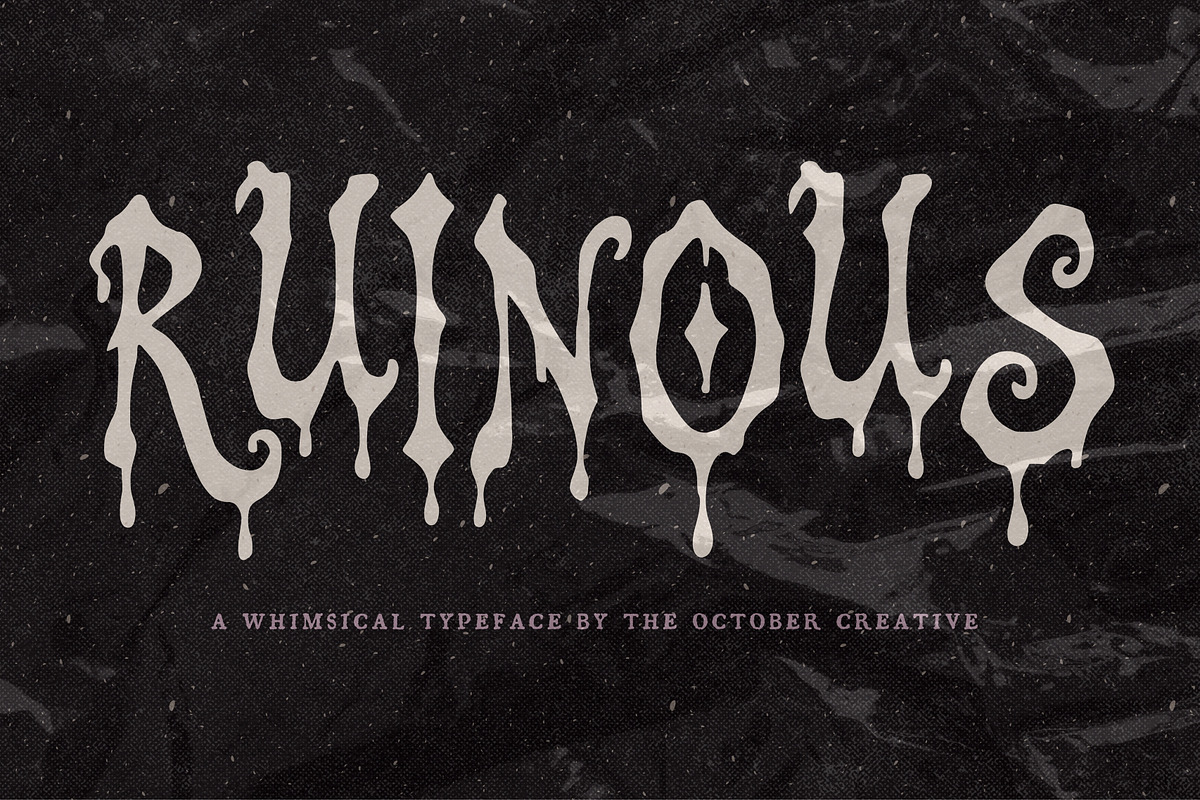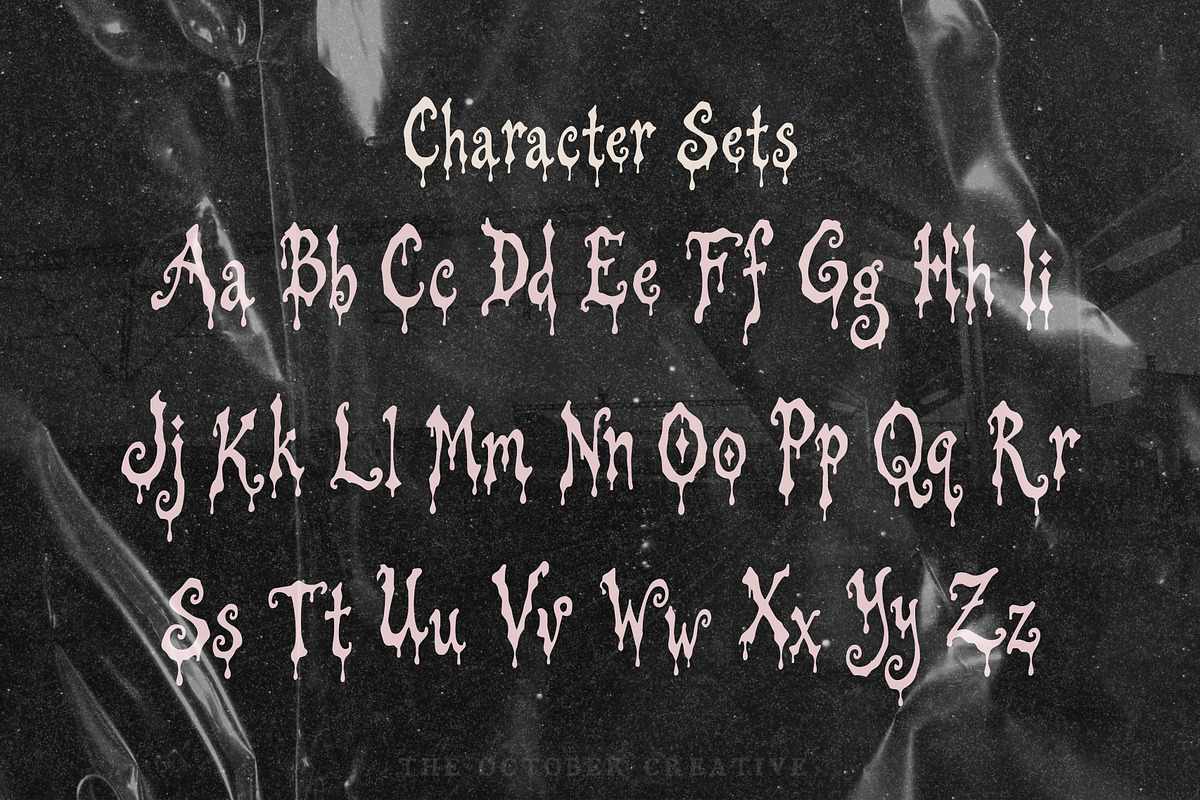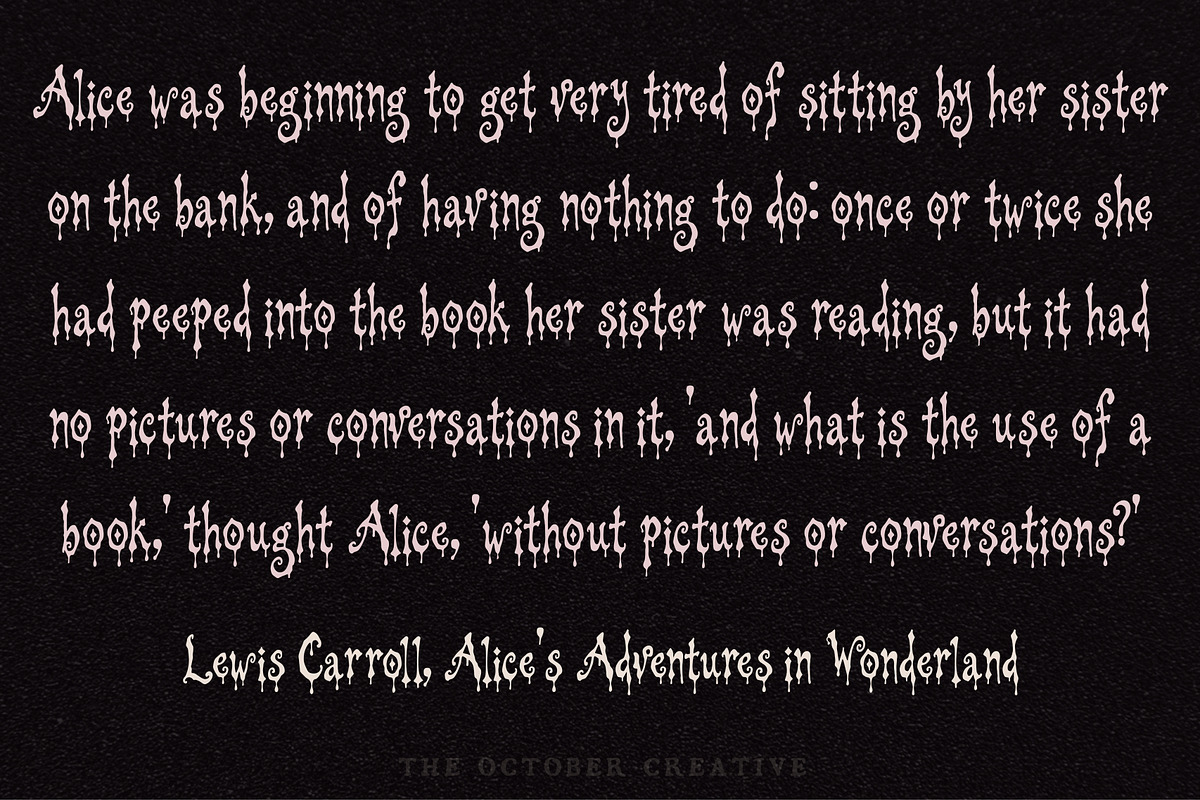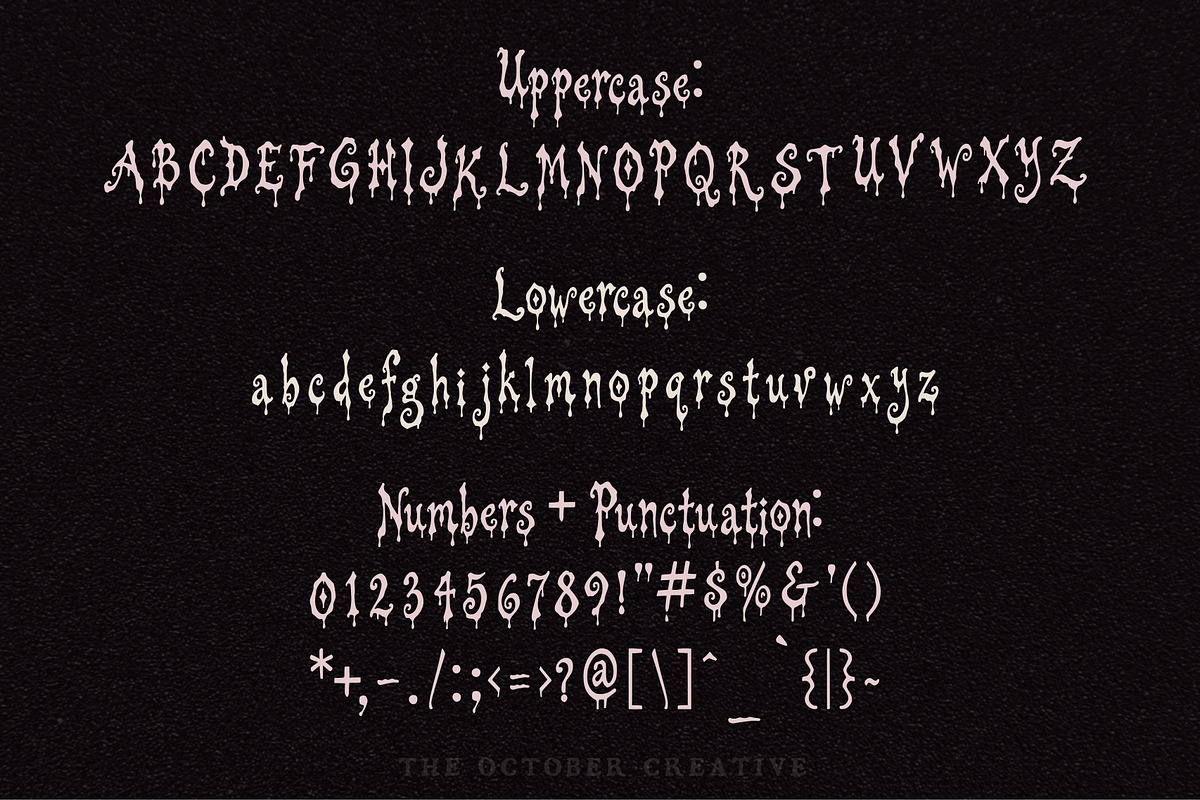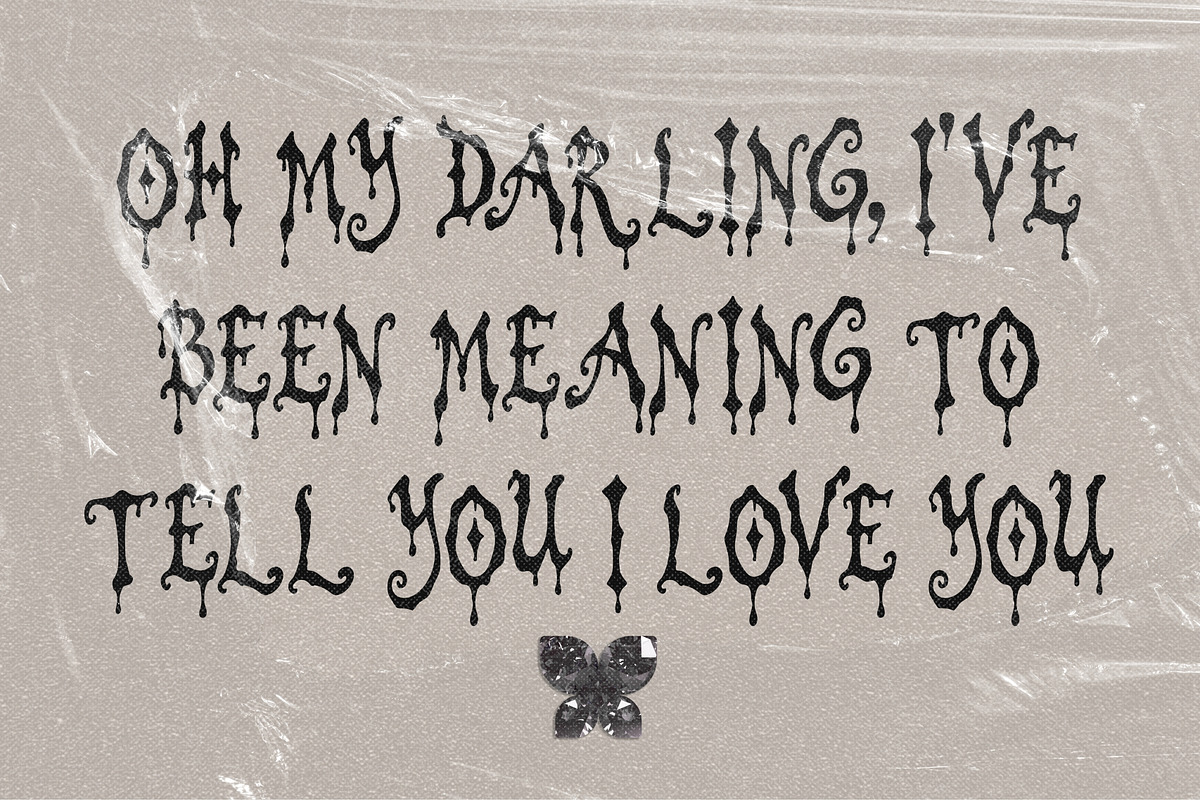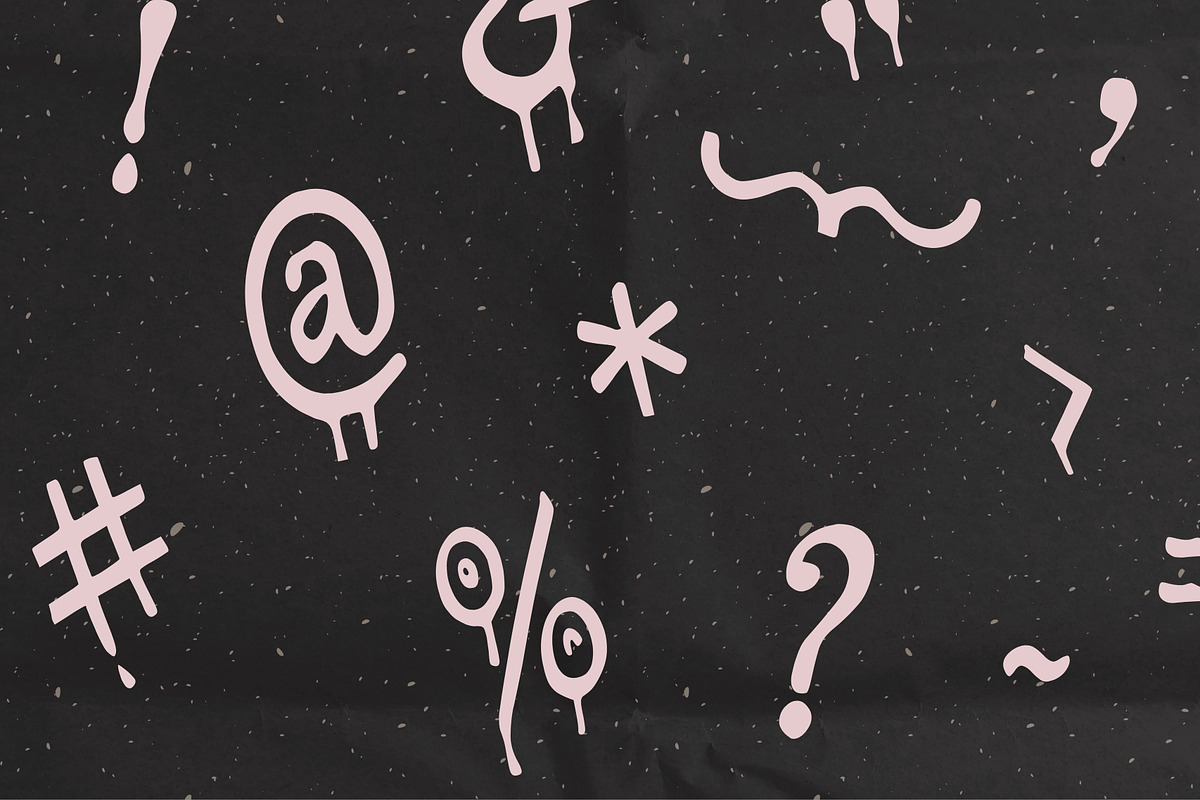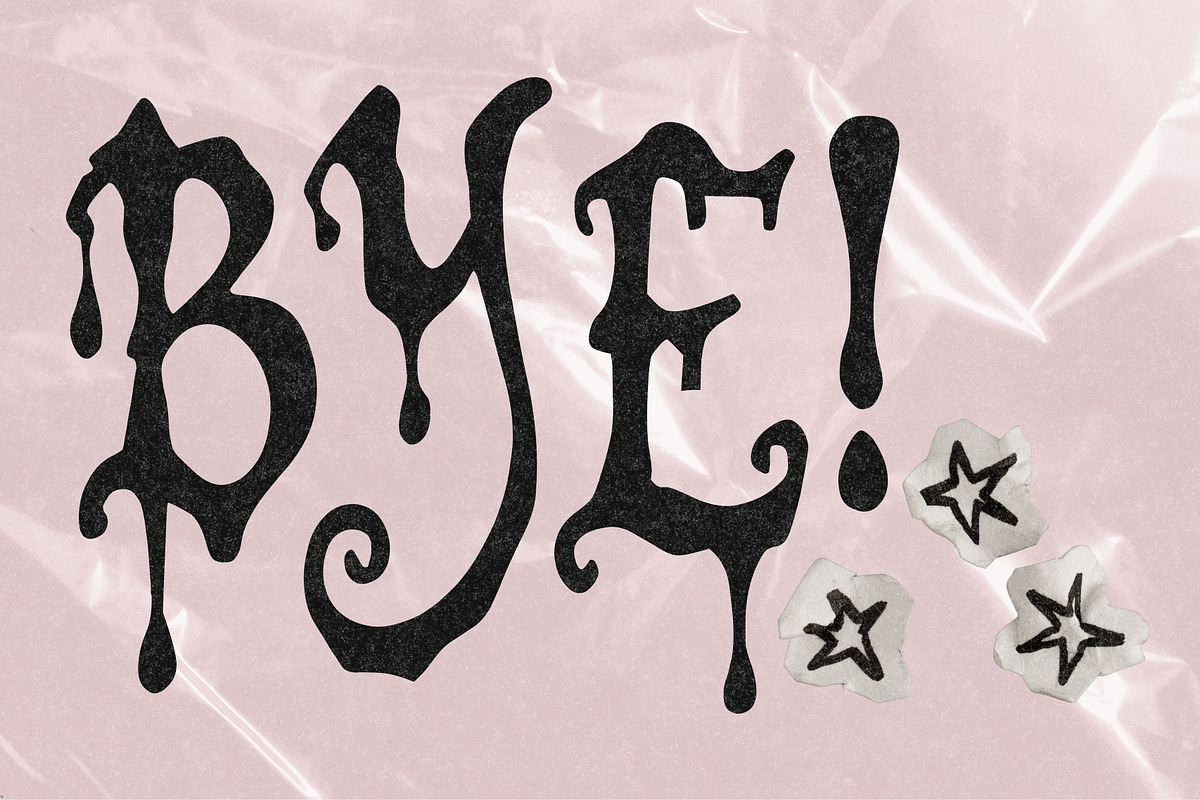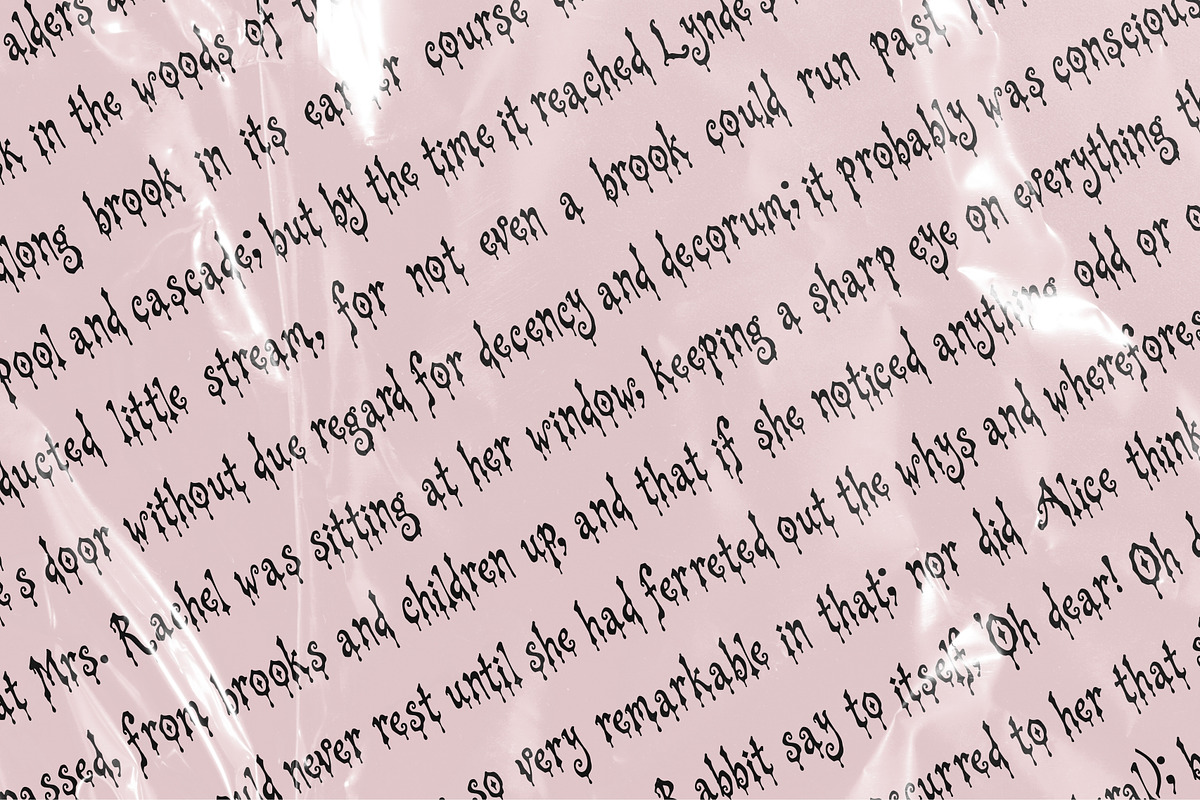
Ruinous Dripping Display Font
Ruinous is a dripping display font with thick drips hanging off the bottom of every letter, and it is the heaviest of the melting faces. It fits Halloween posters, horror-themed merch, tattoo flash sheets, and October flyers.
CHARACTER SET
Uppercase A to Z, lowercase a to z, numerals 0 to 9, and every standard keyboard punctuation mark and symbol: ! " # $ % & ' ( ) * + , - . / : ; < = > ? @ [ \ ] ^ _ ` { | } \~
Curly quotes and apostrophes (‘ ’ “ ”), en and em dashes, an ellipsis, and a bullet.
Accented letters: À Á Â Ã Ä Å Ç È É Ê Ë Ì Í Î Ï Ñ Ò Ó Ô Õ Ö Ù Ú Û Ü and their lowercase forms.
LANGUAGES SUPPORTED
English, plus the accented vowels, Ñ, and Ç used in names and everyday words in Spanish, French, Italian, Portuguese, German, and Dutch. Not included: ß, Æ, Ø, Œ, and the upside-down ¿ and ¡.
SPECIAL CHARACTERS